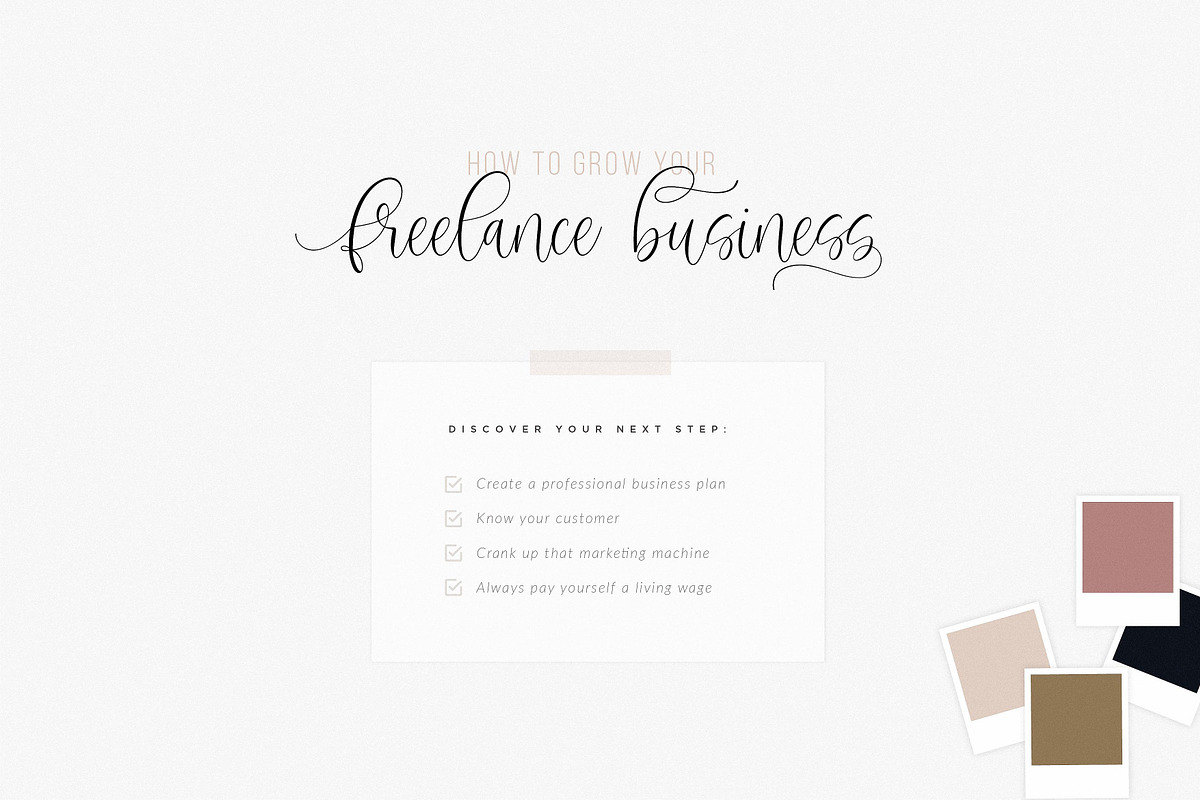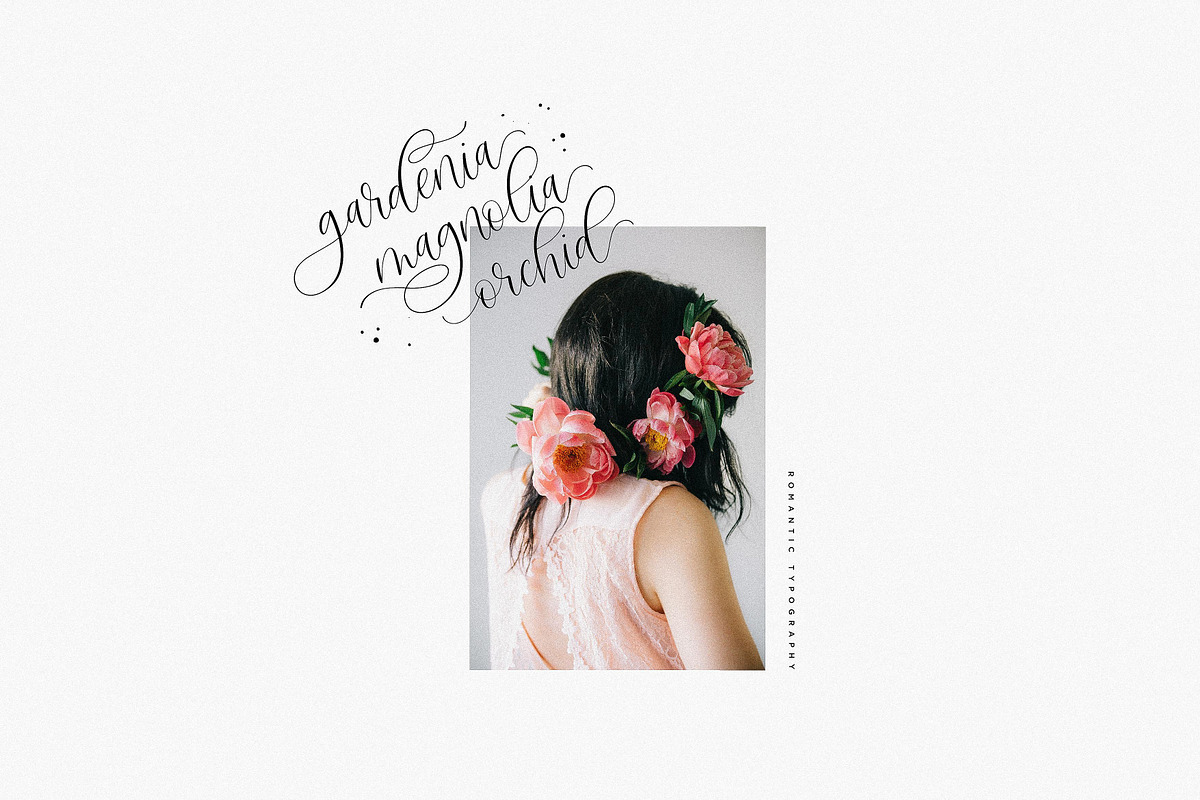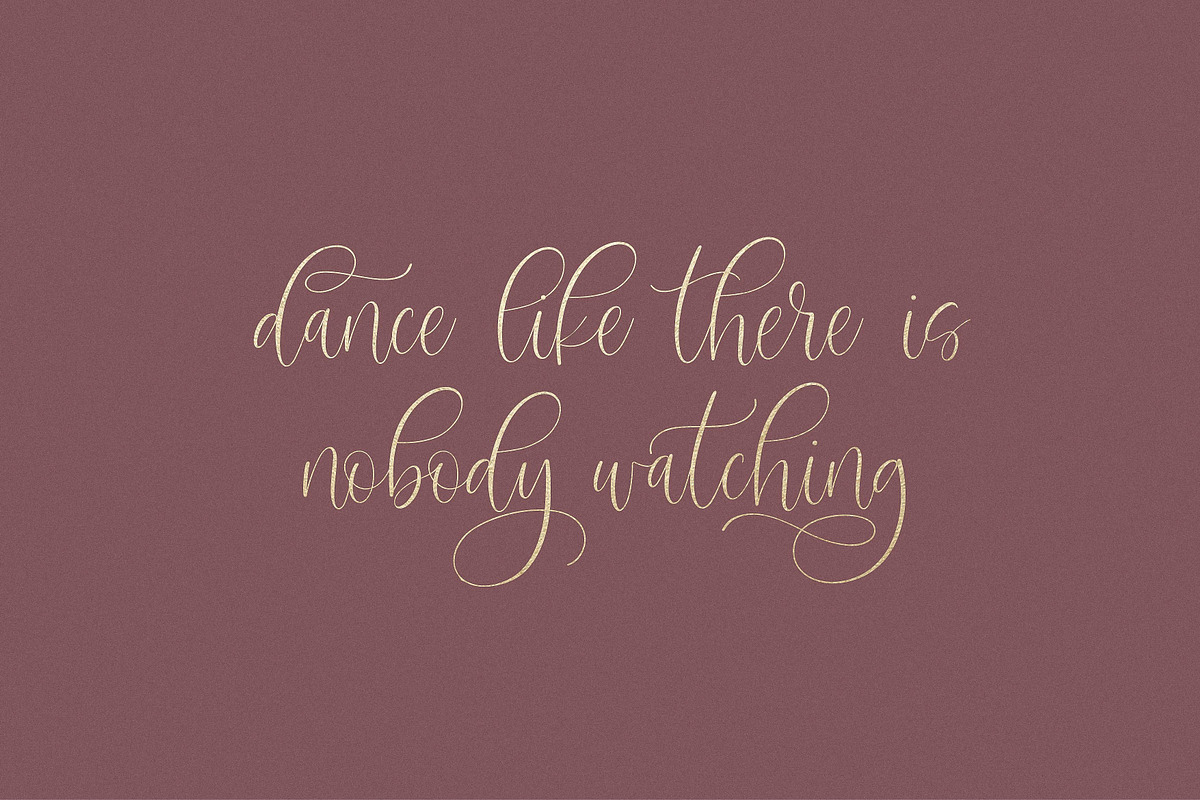
Sangria Script Font
Introducing the lovely new Sangria Script Font!
Sangria was built with OpenType features and includes beginning and ending swashes, numbers, punctuation, alternates, ligatures and it also supports other languages :)
Multilingual capabilities are available for this font. Characters include: ÁÂÄÀÅÃÆCÐÉÊËÈÍÎÏÌ ŁÑÓÔÖÒØÕŒÞŠÚÛÜÙẂŴẄẀÝŶŸỲŽáâäàåãæçdððéêëèíîïìłñóôöòøõœþšßúûüùẃŵẅẁýŷÿỳž